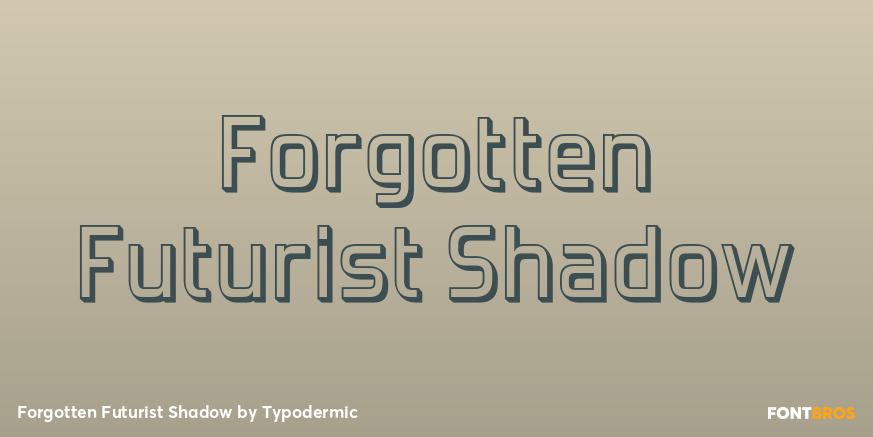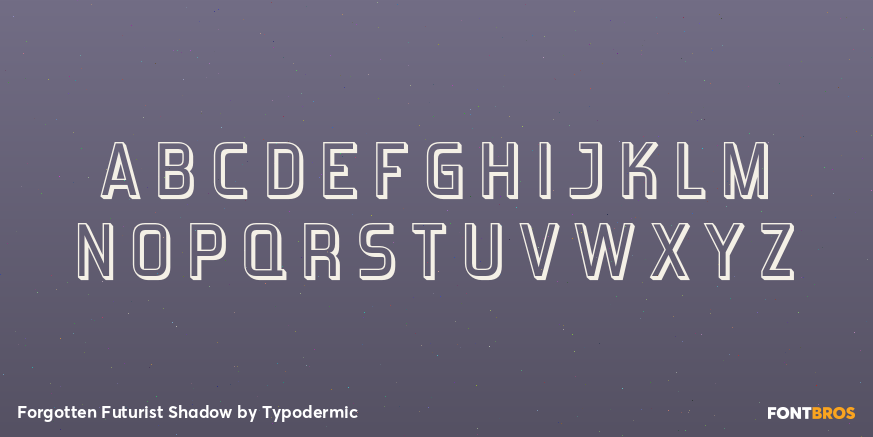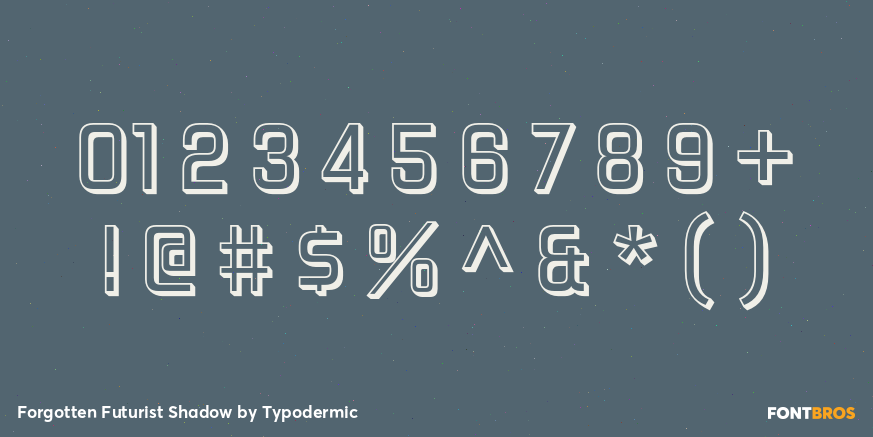
Forgotten Futurist Shadow
Buy NowForgotten Futurist Shadow turns the family’s squared industrial letterforms into a single-color outline-and-shadow treatment. Each character has an open face edged by a fine contour, with a crisp shadow offset down and to the right. The construction keeps Forgotten Futurist’s narrow proportions and blunt engineered joins while adding dimensional emphasis that the ordinary weights and italics do not provide.
Use Shadow for short display text on equipment-catalog covers, utility anniversary graphics, facility open-house posters, trade-show panels, service-bay signs, and retro-technical exhibition titles. The open face can reveal a photograph, texture, or contrasting field while the built-in shadow gives the lettering a firm edge. It works best for prominent names, numbers, and brief headings; pair it with Forgotten Futurist’s regular styles for specifications, captions, and longer supporting text.